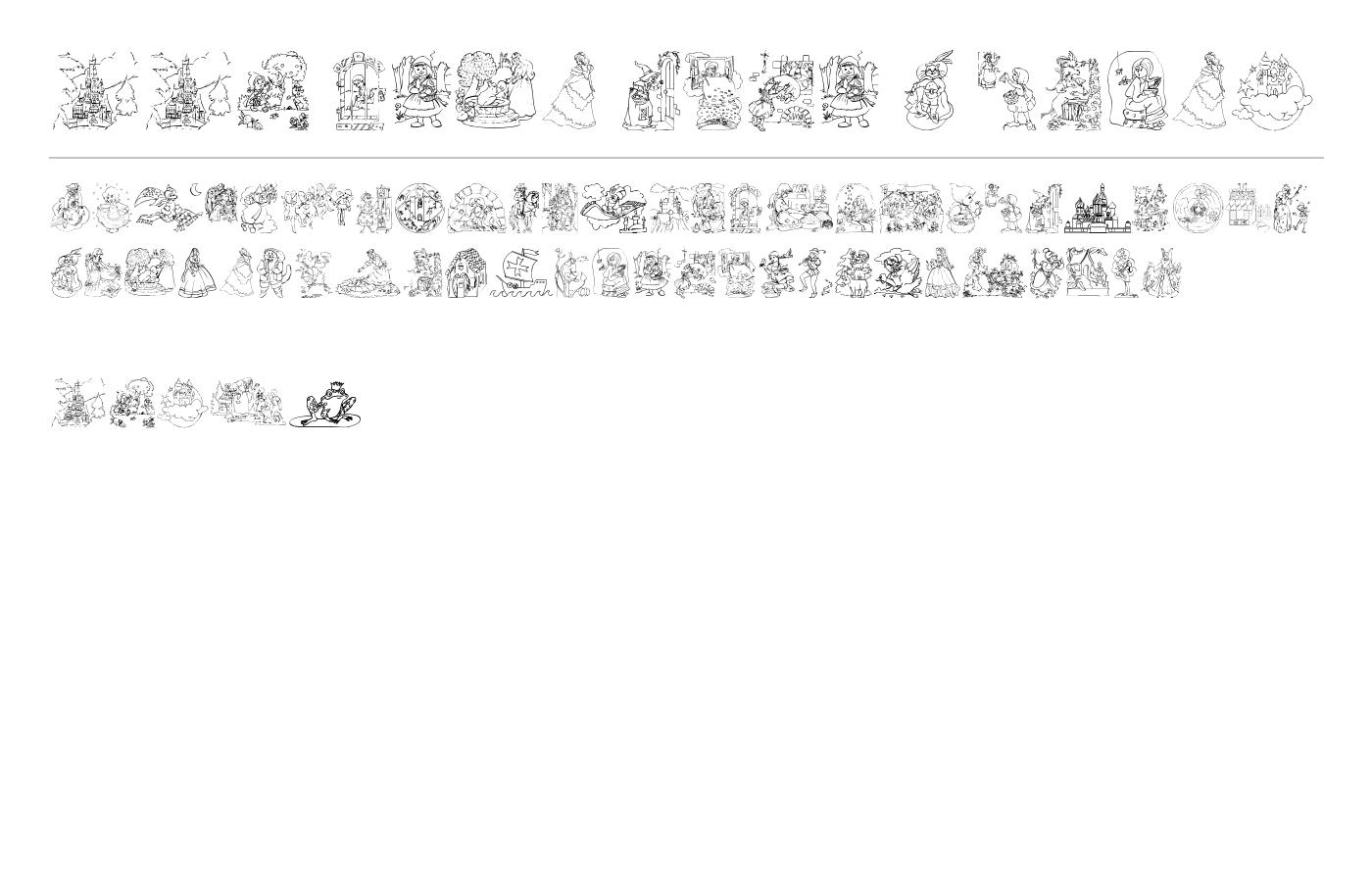
001 Once Upon a Time 2 is a whimsical decorative font featuring detailed, storybook-style illustrations instead of traditional letters. Its playful and enchanting imagery makes it perfect for children's books, fairy tale projects, or any design needing a magical, narrative touch. This font works best in creative headlines, invitations, and themed packaging where its intricate visual storytelling can shine.
001 Once Upon a Time 2 Font